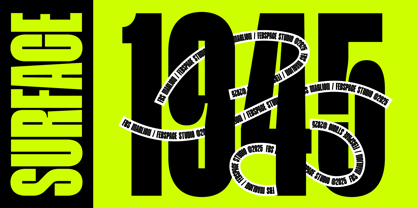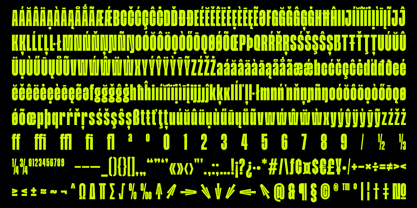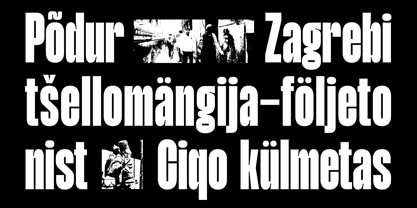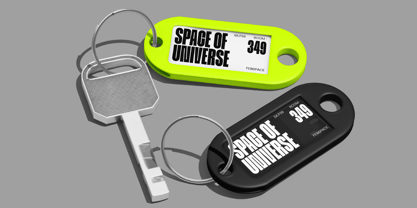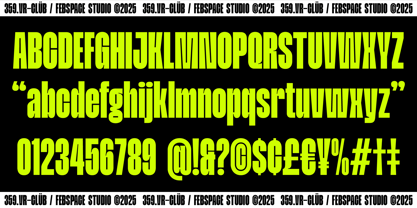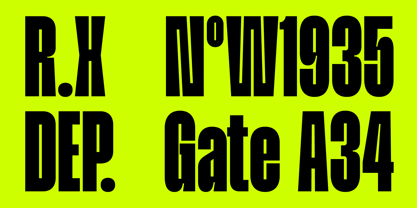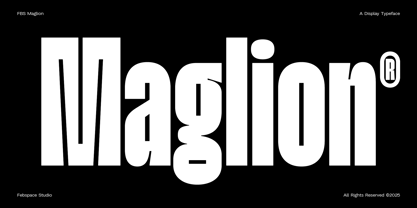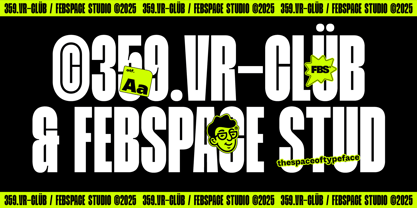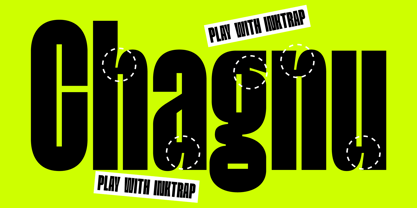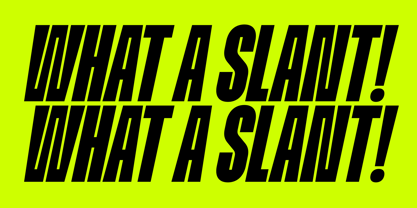
FBS Maglion
by Febspace Studio
FBS Maglion®
FBS Maglion is a modern condensed typeface featuring functional inktraps that enhance both its visual identity and legibility. Designed in two distinct styles—Regular and Slanted—this typeface brings a bold and stylish edge to any project. Perfectly suited for editorial design, fashion branding, packaging, posters, and more, FBS Maglion offers high adaptability without compromising its strong personality.
Key Features :
• 2 Styles: Regular & Slanted
• Condensed structure with unique inktraps
• Ideal for headlines, branding, and editorial use
• Modern, bold, and versatile